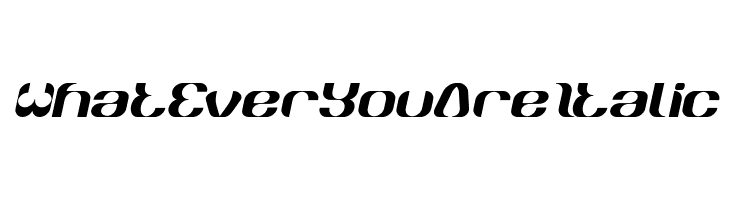
( Fonts by MJB Letters )
( Fonts by Typography in Decay )
A bold, gothic-inspired font with sharp, angular edges and a tribal aesthetic.
( Fonts by Emil Bertell - www.fenotype.com )
A bold, rounded font with a playful and modern style.
( Fonts by Dennis Ludlow - Sharkshock Productions )
A bold, playful font with thick strokes and whimsical curves.
( Fonts by RudynFluffy )
A playful serif font with crown embellishments and a mix of bold and cursive styles.
( Fonts by Dibujado )
A bold, distressed font with a vintage, grunge aesthetic.
A bold, playful, and hand-drawn style font with thick, rounded characters.
A bold, geometric font with a modern and futuristic style.
( Fonts by Jeri Ingalls - littlehouse.homestead.com )
A bold, geometric font with sharp angles and consistent stroke width.